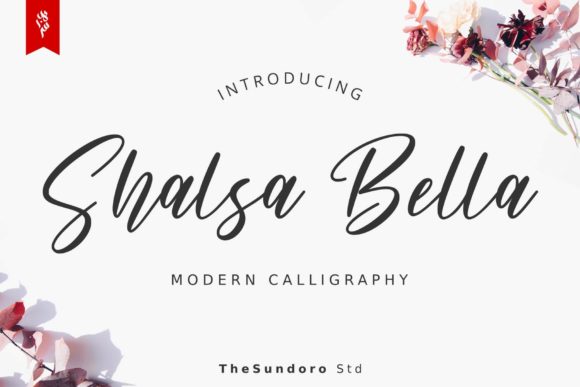
Unlock the beauty of your words with Shalsa Bella, the enchanting script font that will leave an everlasting impression on your designs.
Picture the delicate strokes of a calligraphy pen, flowing effortlessly to create an air of elegance and sophistication. With Shalsa Bella, every letter becomes a work of art, adding a touch of grace to any project.
Its sweeping curves and graceful swashes evoke a sense of romance and femininity, making it the perfect choice for wedding invitations, thank you cards, and other special occasions. Imagine your loved ones' faces lighting up as they receive a handwritten note penned in the exquisite beauty of Shalsa Bella.
But Shalsa Bella's versatility extends far beyond the realm of weddings. Its charm graces logos, business cards, and greeting cards alike, adding a touch of sophistication and creativity to every endeavor.
Whether you're a seasoned designer or just starting your creative journey, Shalsa Bella is the font that will elevate your designs to new heights. Its ease of use and stunning aesthetics make it a joy to work with, ensuring that your creations will captivate and inspire.
Indulge in the exquisite beauty of Shalsa Bella today, and let your words dance with elegance and grace.